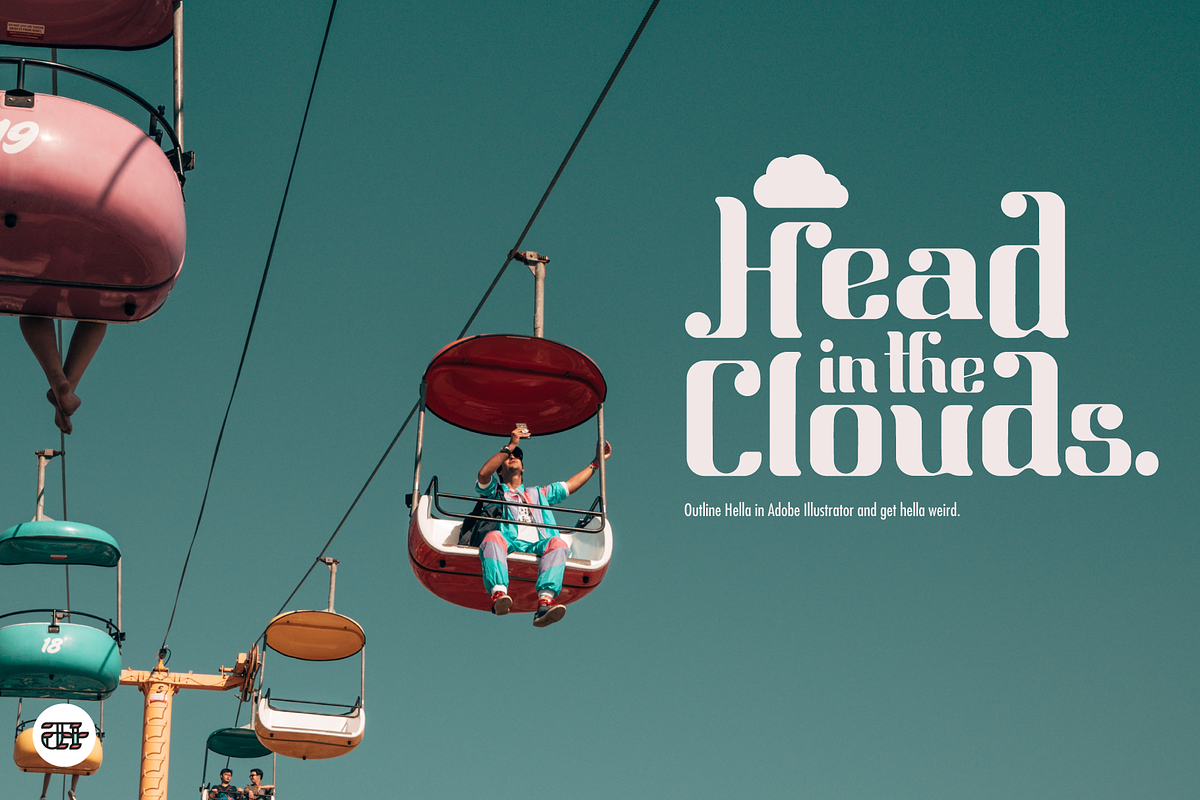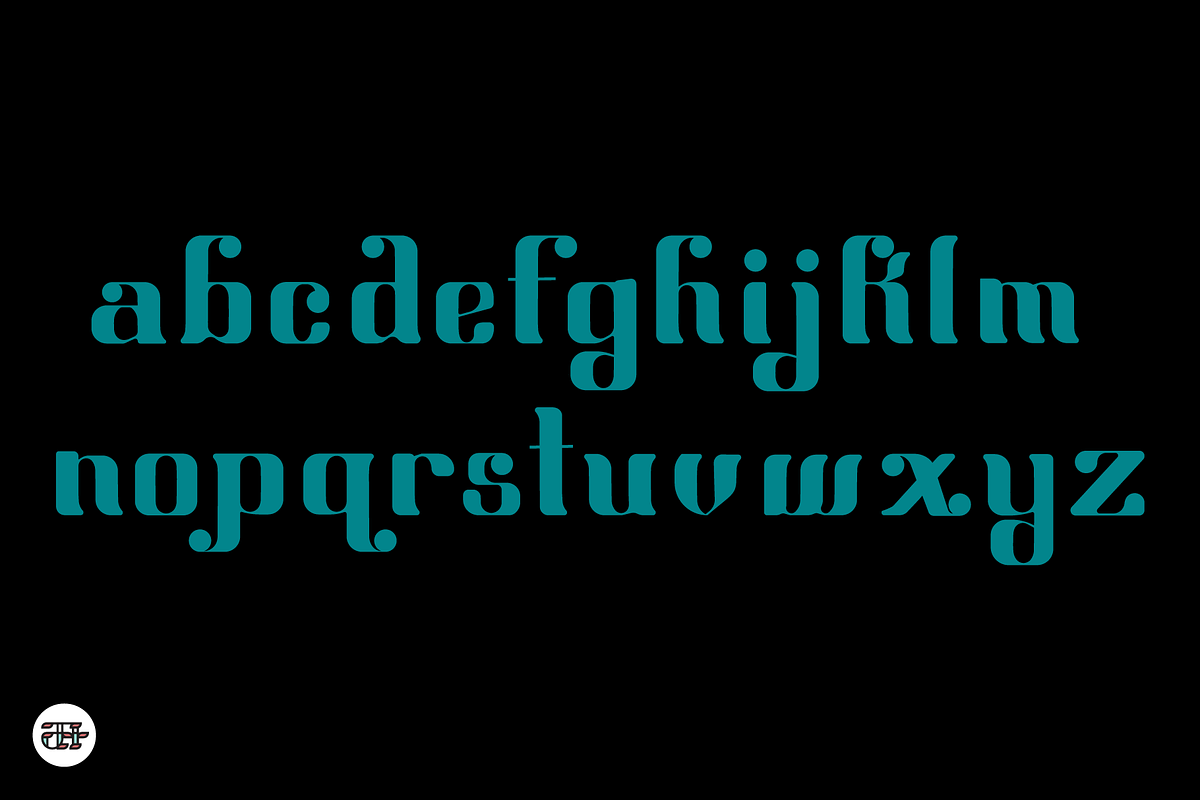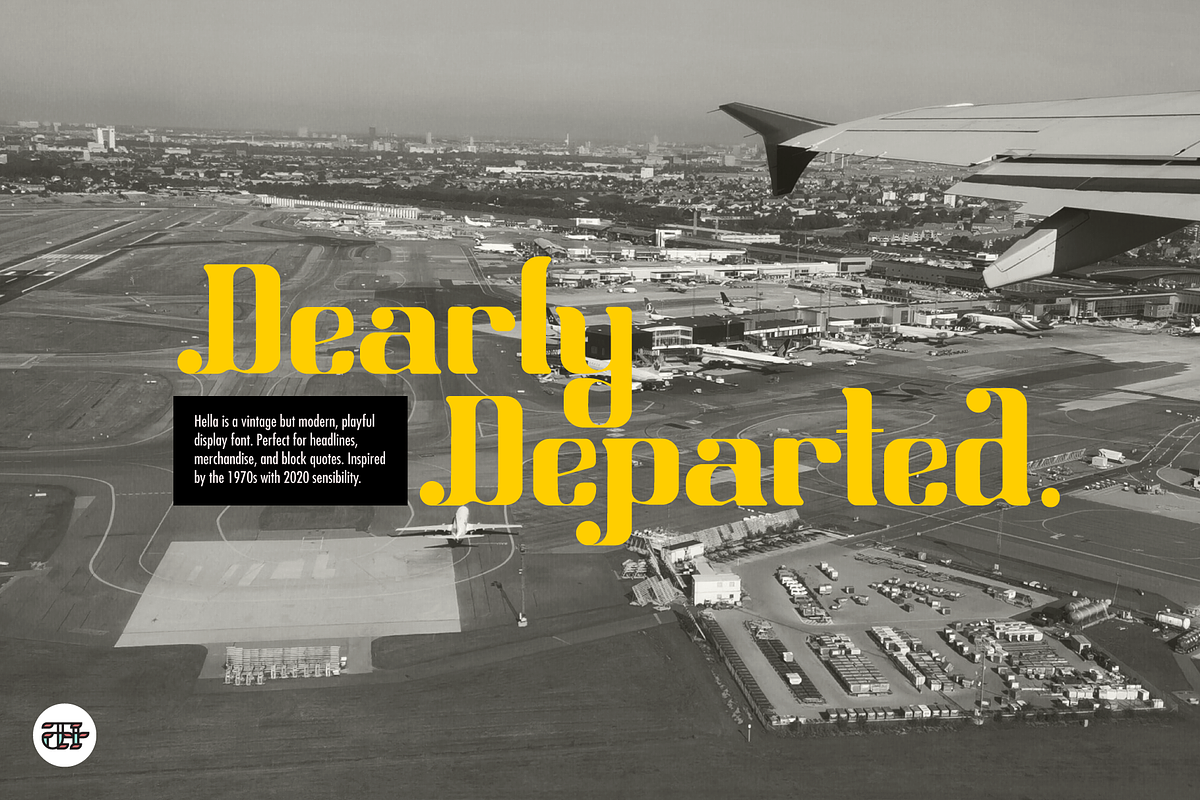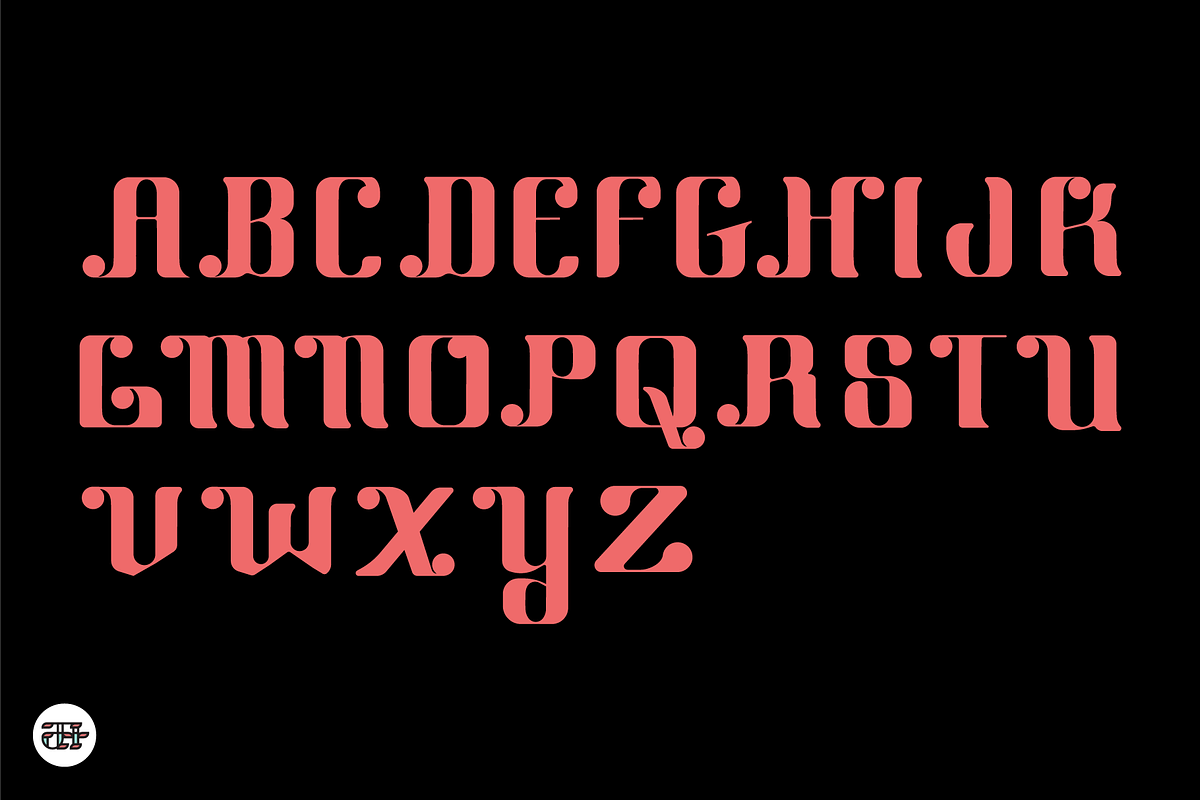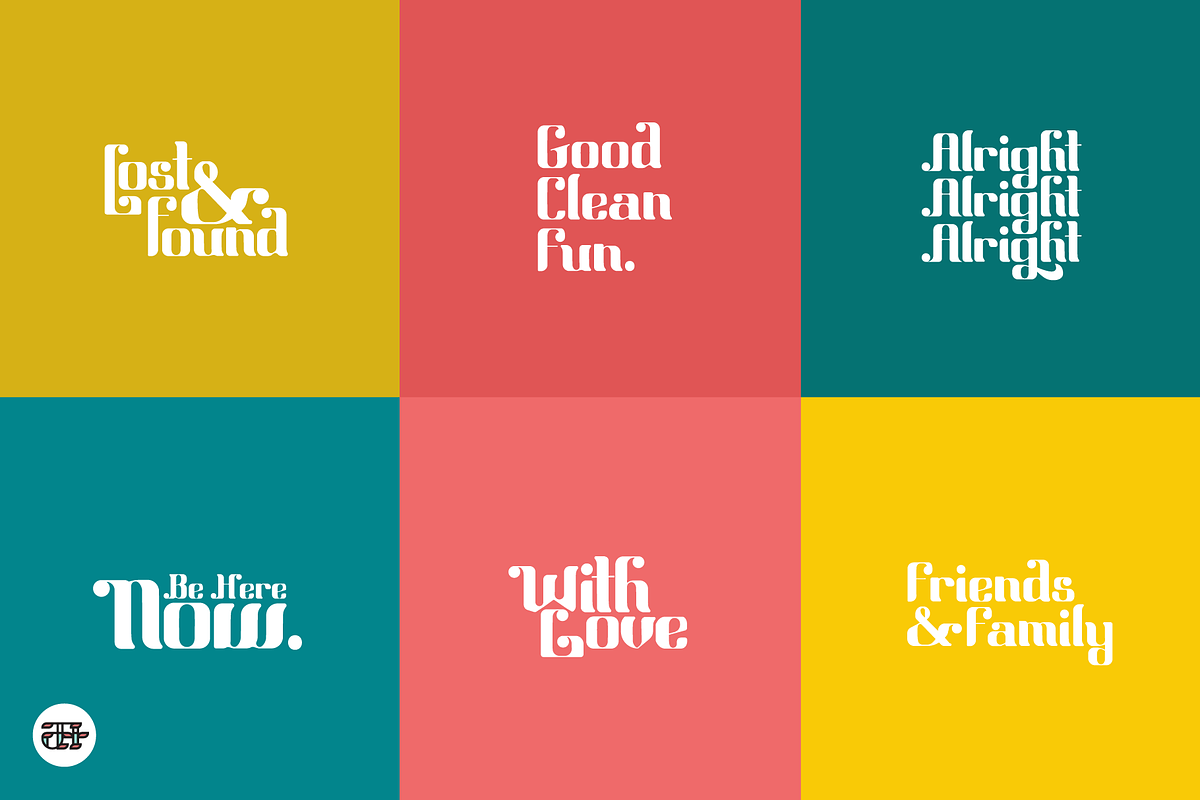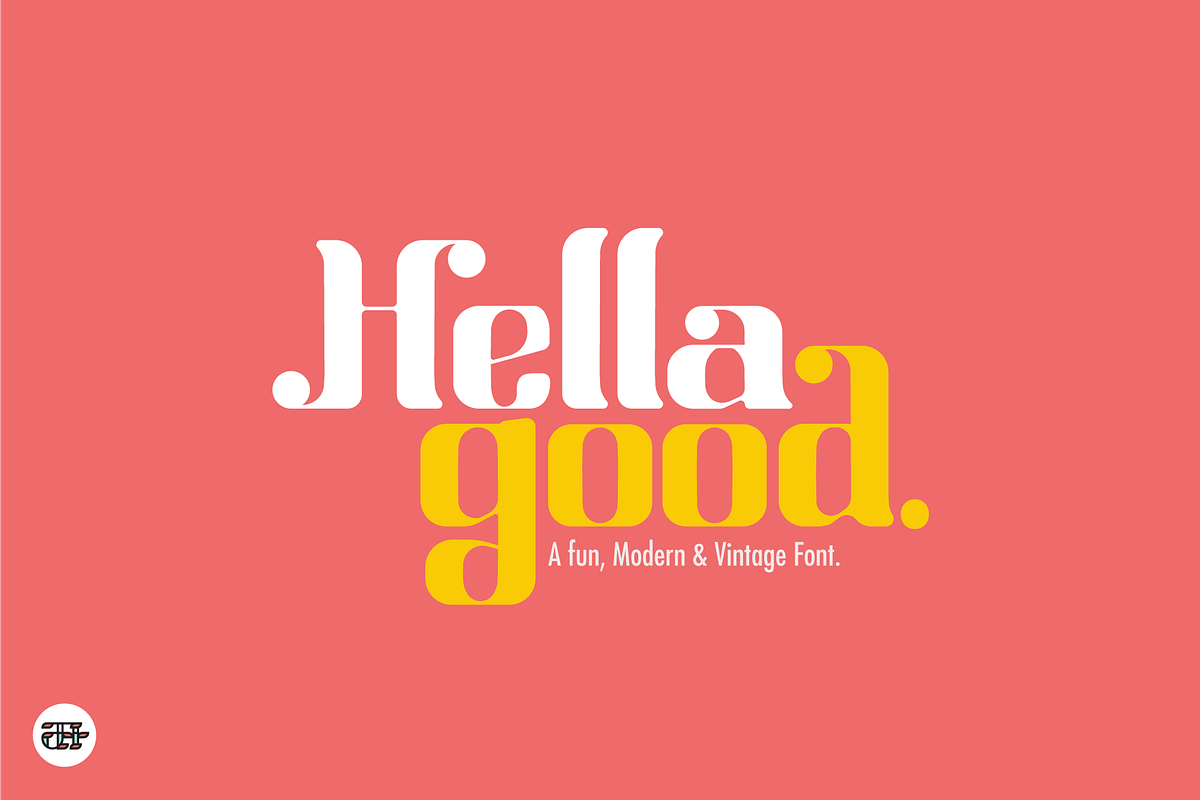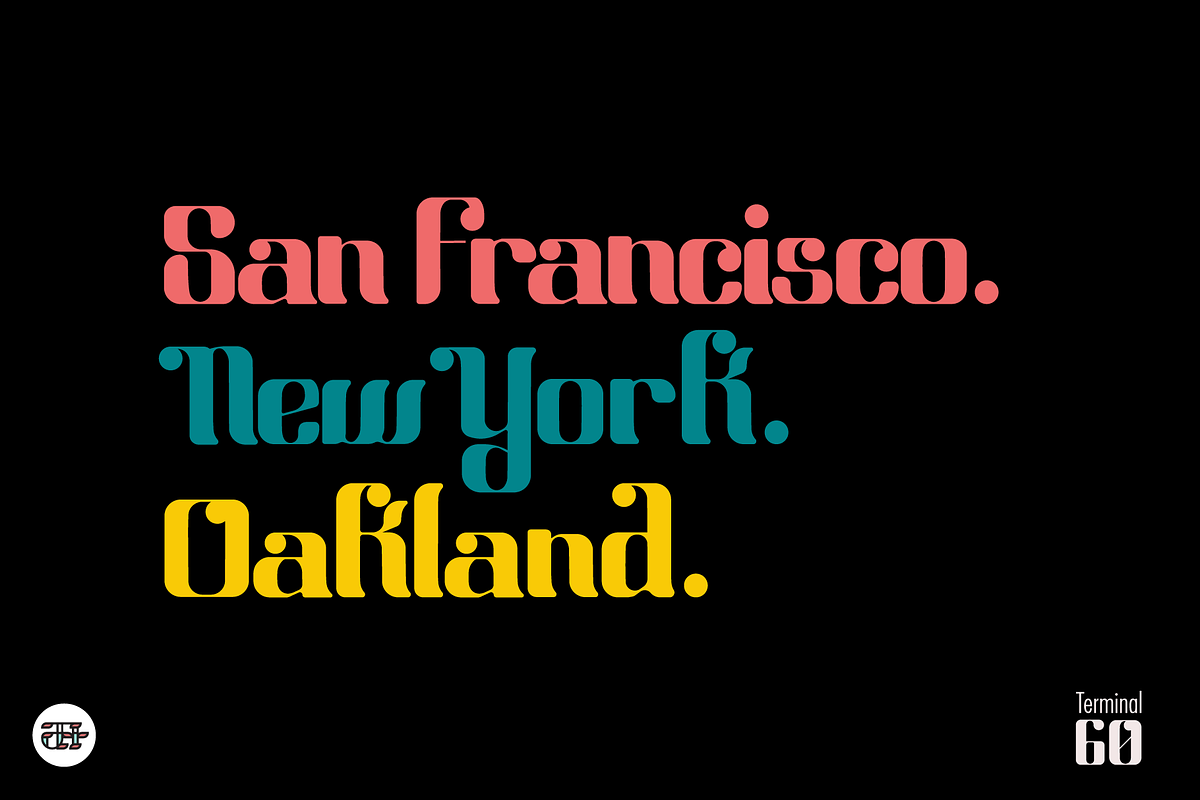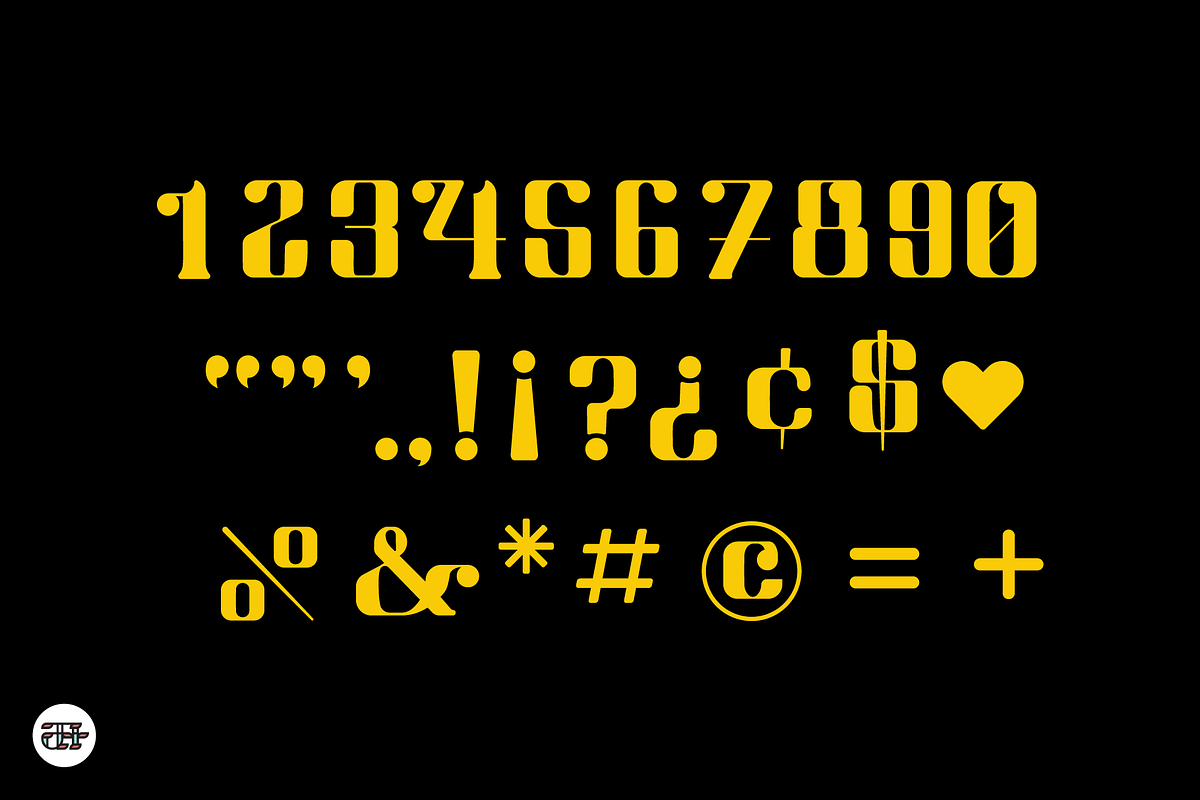
Hella Good Type Display Font
Hella Good Type is a vintage but modern bold display font. Inspired by the 1970s. The font is full of charm and character. With unique details and characters. This font is perfect for headlines, merchandise, and quotes. Thanks for looking! 👀
What the font includes: • Full set of uppercase letters • Full set of lowercase letters • Full set of numerals • Many special characters included